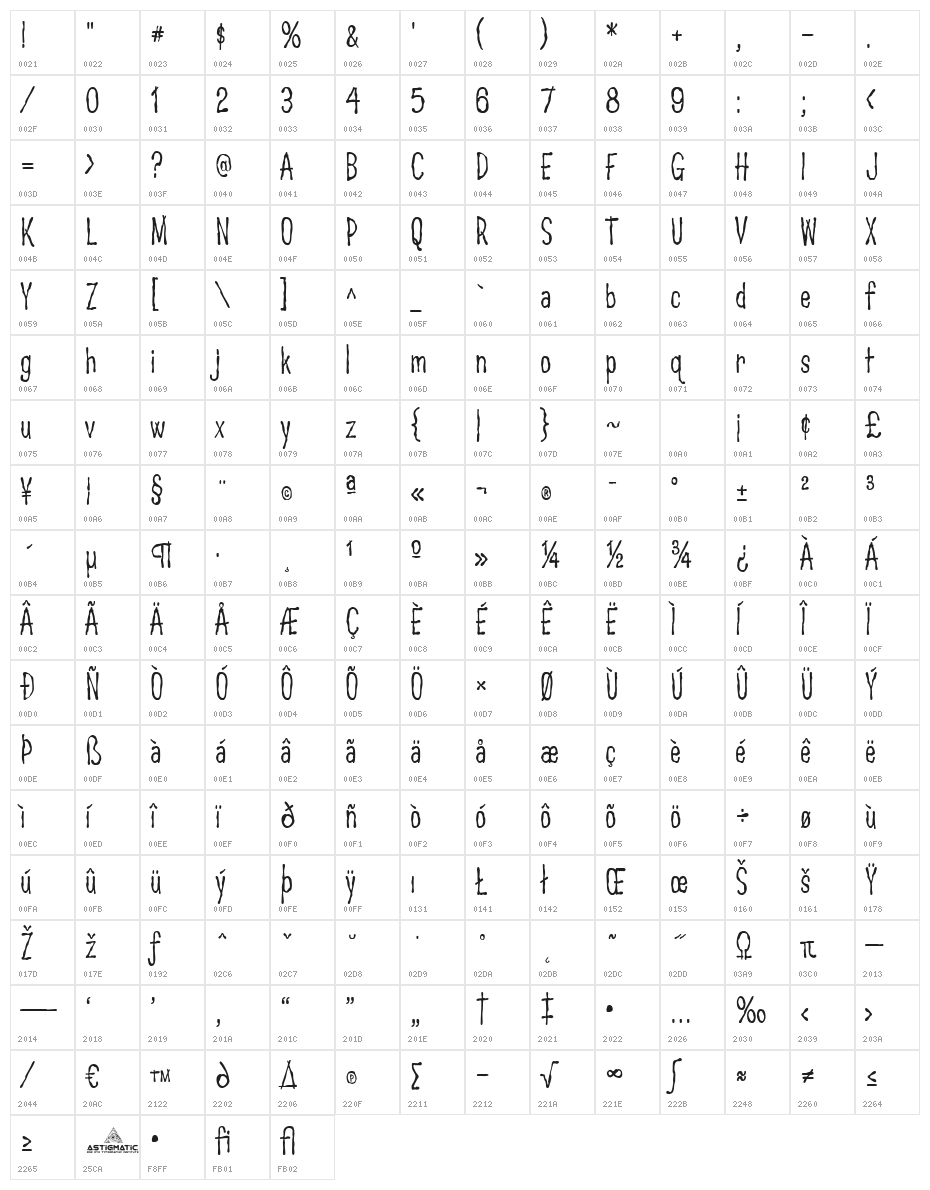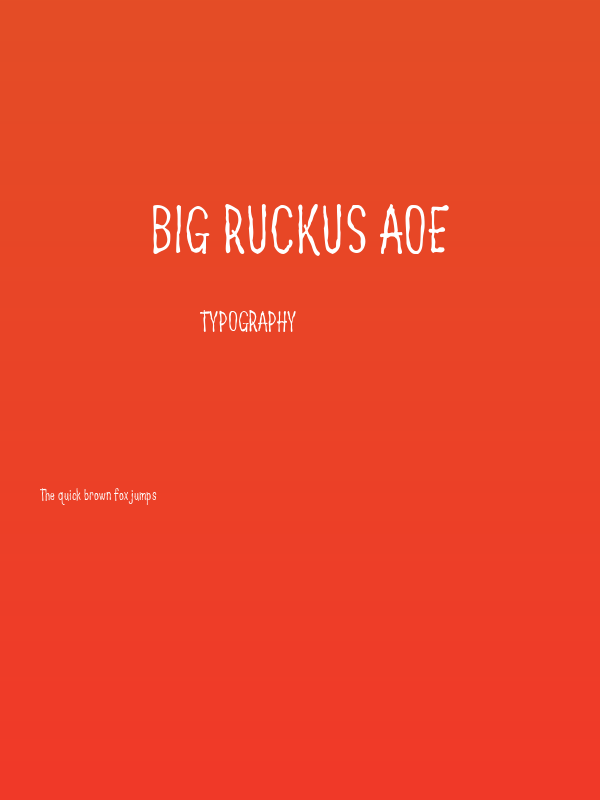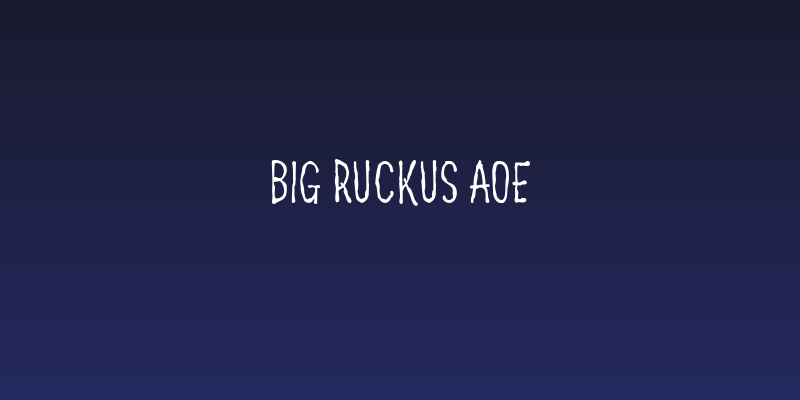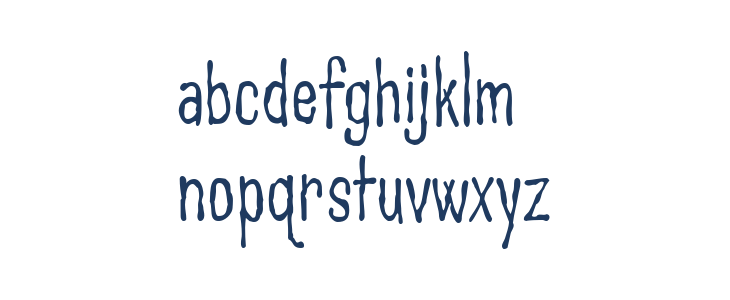
Big Ruckus AOE Font
Big Ruckus AOE Description
This font features a playful and slightly chaotic design, characterized by its uneven and hand-drawn appearance. The letters have a whimsical quality, with irregular strokes and varying line thicknesses that give it a lively and energetic feel. The uppercase and lowercase letters maintain a consistent style, while the numbers and special characters complement the overall aesthetic. This font's unique style makes it stand out, offering a sense of fun and creativity.
| Proposed Projects | Ideal for children's books, playful branding, creative posters, and informal invitations. |